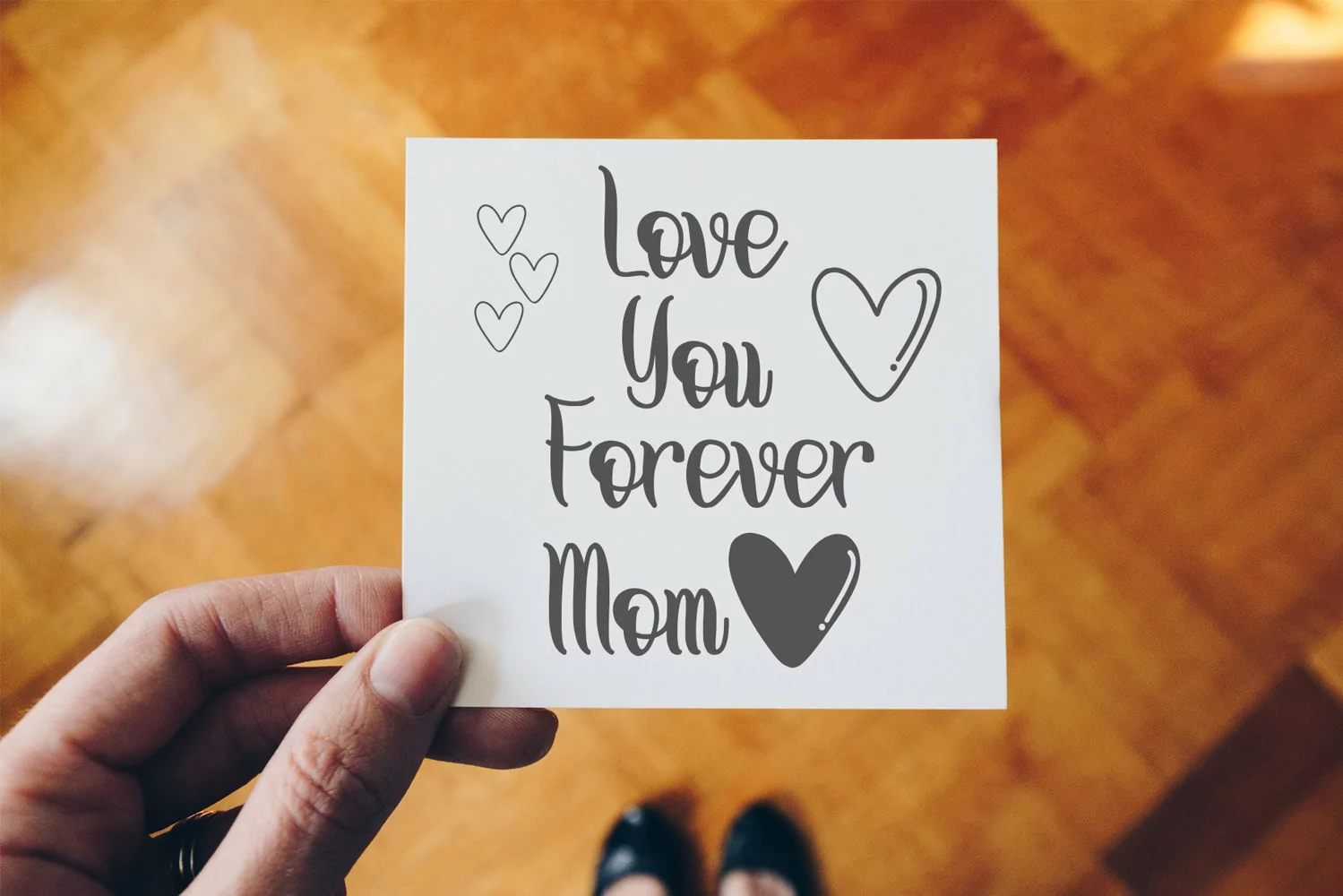
Beautiful Handwritten
THANKS MOM
Thanks Mom is a Calligraphy Script font by Letterafa Studio. It has flowing letters that will give your designs a unique and sweet look. Thanks Mom font is perfect; logos, greeting cards, a package design, a brand identity, craft design, any DIY project, book title, wedding invitation, packaging, and more.
- Basic Uppercase and Lowercase
- Alternate & Swashes
- Ligature & Titling
- Number and Punctuation